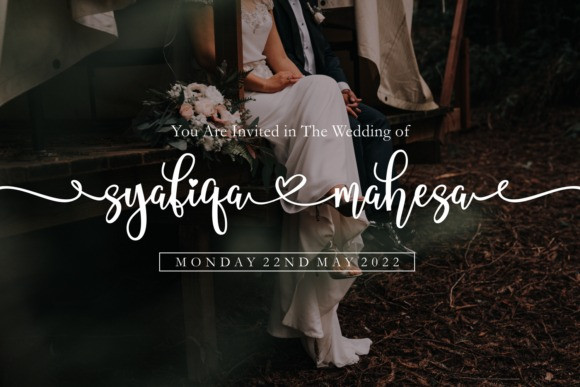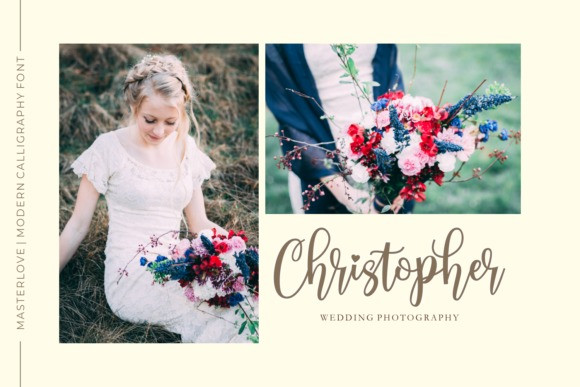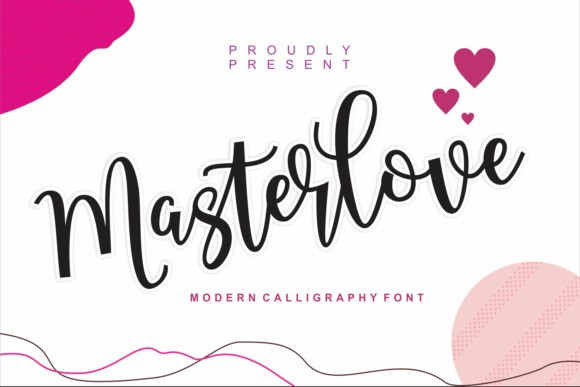
Masterlove Font
Masterlove Font is a beautiful script font. It has a classy, elegant, and modern look. This versatile script font has a wide spectrum of applications, including logos, branding, invitations, stationery, wedding designs, social media posts, and every other design which needs a handwritten touch.